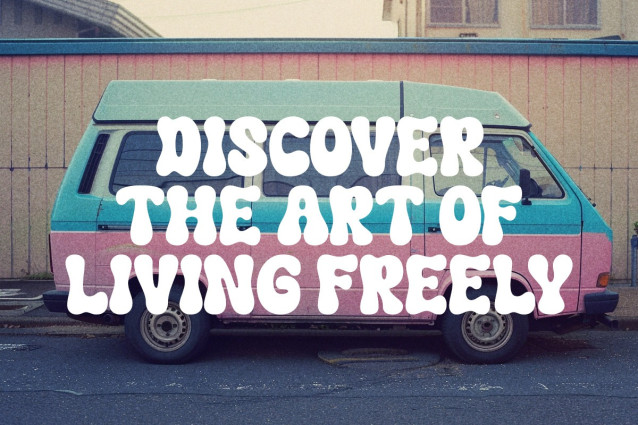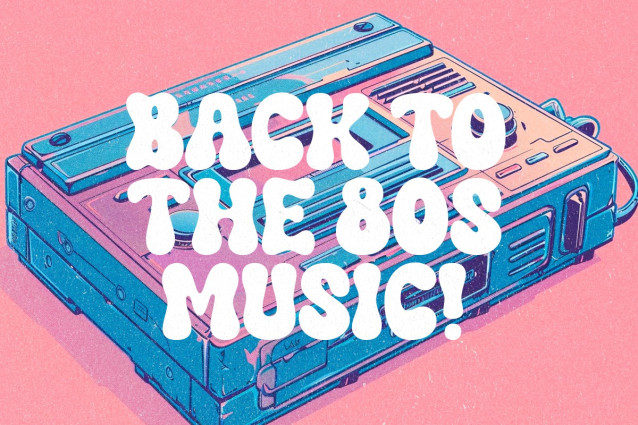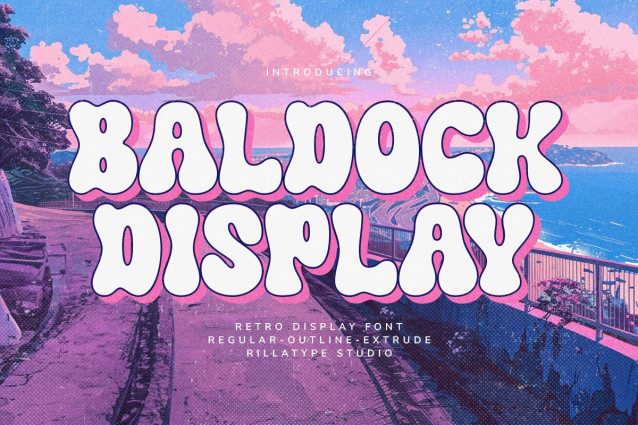
RT Baldock Display Font
RT Baldock Display Font is more than just a font; it’s a journey back to the vibrant era of the ’70s. With its bold strokes and dynamic curves, this groovy display font brings the retro vibes to life in every design project. Whether you’re creating posters, album covers, or branding materials, Baldock adds that nostalgic touch that makes your work stand out. Let your creativity flow and transport your audience to the golden age of disco with Baldock.